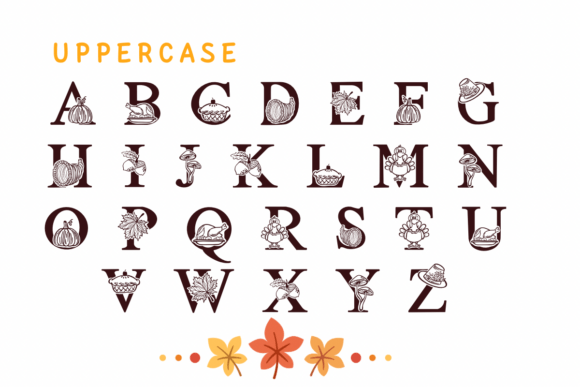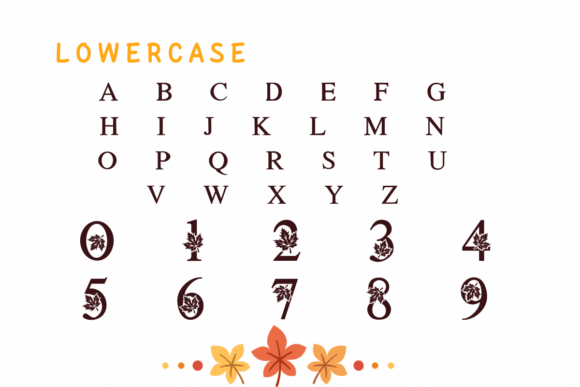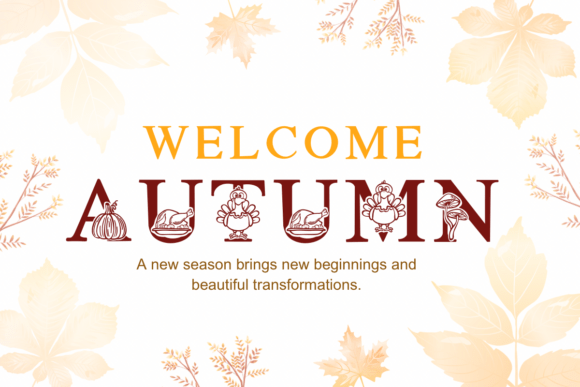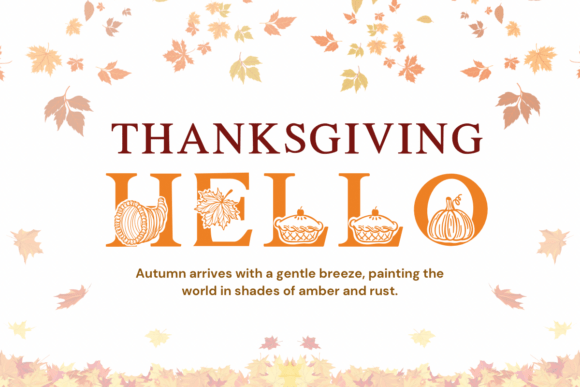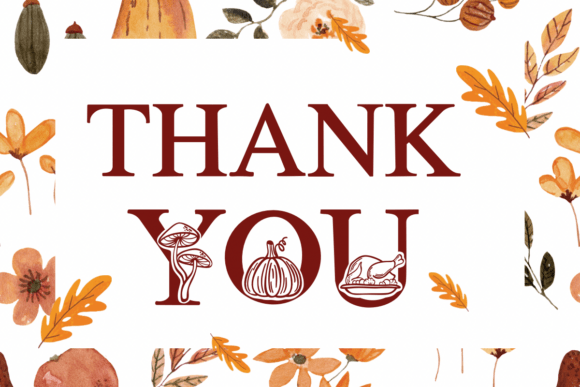
Happy Thanksgiving Font: Add a Festive Touch to Your Designs
As the autumn season approaches, designers and crafters are on the lookout for the perfect typography to capture the warmth and charm of this festive time of year. Look no further than the Happy Thanksgiving Font, a playful and decorative typeface that’s sure to add a touch of seasonal magic to your designs.
What is Happy Thanksgiving Font?
Happy Thanksgiving Font is a unique and festive typeface that’s specifically designed to evoke the spirit of autumn. Each character in this charming font is meticulously crafted with fall-inspired illustrations, including pumpkins, leaves, acorns, and more. The result is a playful and eye-catching typography that’s perfect for a wide range of seasonal designs.
Uses for Happy Thanksgiving Font
Happy Thanksgiving Font is incredibly versatile, making it perfect for a variety of design projects. Here are just a few ideas to get you started:
- Seasonal Greeting Cards: Add a personal touch to your holiday cards with this festive font.
- Autumn-themed Notes and Journals: Use Happy Thanksgiving Font to add a decorative touch to your notes, journals, and diaries.
- Social Media Posts: Stand out on social media with eye-catching graphics and typography.
- Banners and Signs: Create festive banners and signs for your home, office, or event.
- Mugs and Water Bottles: Add a seasonal touch to your drinkware with Happy Thanksgiving Font.
- T-shirts and Apparel: Create unique and festive apparel for the holiday season.
- Stationery and Invitations: Add a touch of autumn charm to your stationery and invitations.
Why Choose Happy Thanksgiving Font?
So why choose Happy Thanksgiving Font for your design projects? Here are just a few reasons:
- Unique and Festive: Happy Thanksgiving Font is a one-of-a-kind typeface that’s sure to add a touch of seasonal magic to your designs.
- Playful and Eye-Catching: The font’s playful illustrations and decorations are sure to capture attention and add visual interest to your designs.
- Versatile: Happy Thanksgiving Font can be used for a wide range of design projects, from greeting cards to social media posts.
Tips for Using Happy Thanksgiving Font
Here are a few tips for getting the most out of Happy Thanksgiving Font:
- Experiment with Colors: Try pairing Happy Thanksgiving Font with a range of autumn-inspired colors, such as oranges, yellows, and reds.
- Mix and Match: Combine Happy Thanksgiving Font with other typography and graphics to create unique and eye-catching designs.
- Keep it Simple: Don’t be afraid to keep your design simple and let the font be the star of the show.
Happy Thanksgiving Font is a festive and decorative typeface that’s perfect for adding a touch of autumn charm to your designs. With its unique illustrations, playful style, and versatility, this font is sure to become a go-to for designers and crafters. So why wait? Download Happy Thanksgiving Font today and start creating your own festive designs!